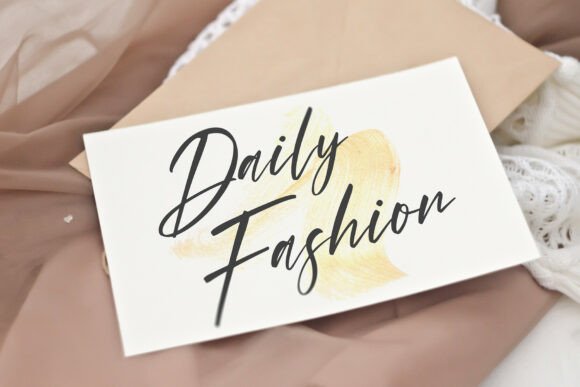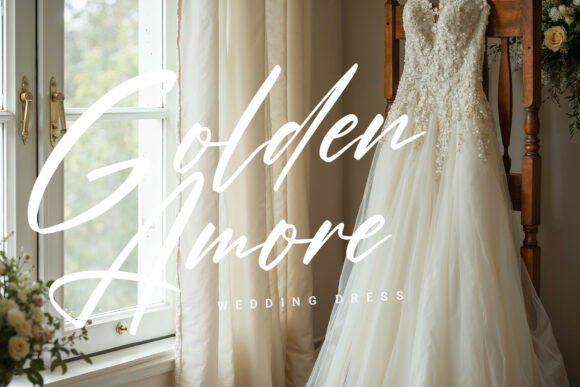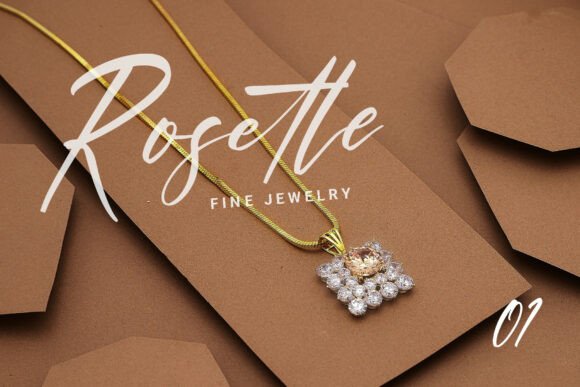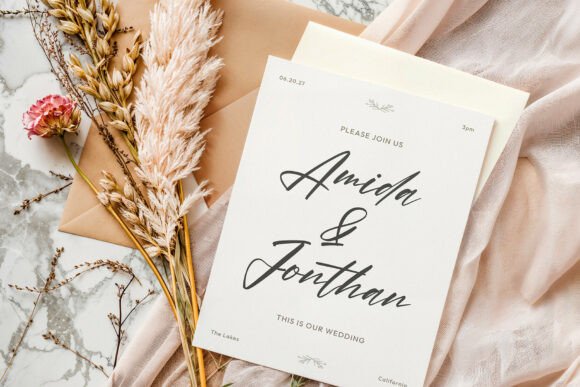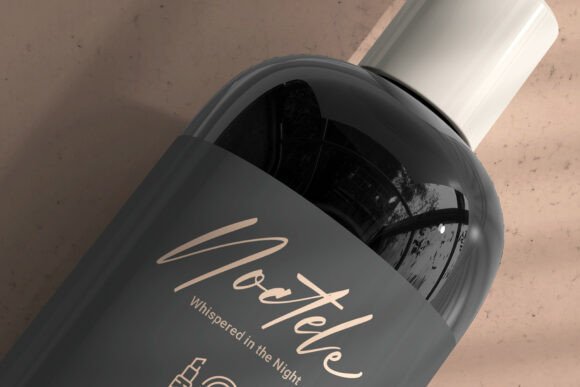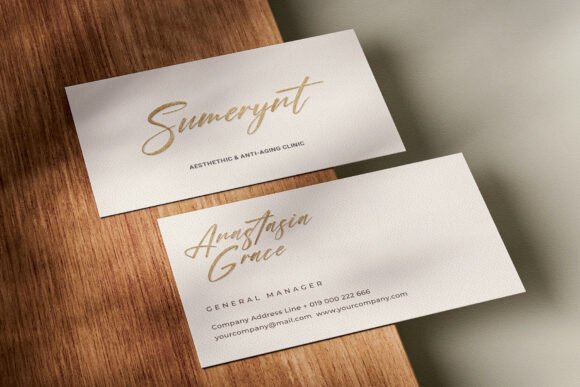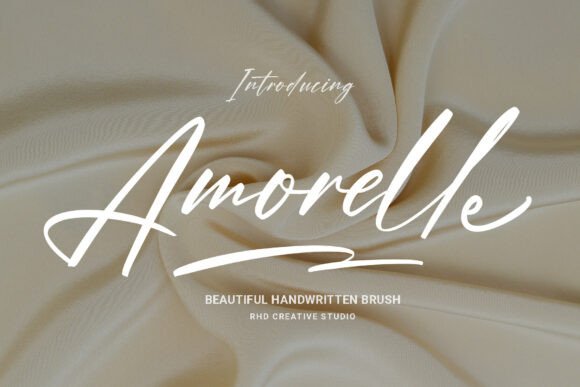
The Effortless Elegance of Amorelle Font: A Designer’s Dream
I still remember the design project that led me to discover Amorelle Font. I was working on a luxury fashion branding campaign, and my client requested a custom typography style that exuded elegance and sophistication. As I scoured the internet for the perfect font, I stumbled upon Amorelle, and it was love at first sight! ✨ The fluid, sweeping strokes and natural dry-brush texture instantly captured the essence of modern romanticism I was looking for.
An Honest Review of Amorelle Font
- ✨ Elegant ligatures and “effortlessly chic” silhouette
- ✅ Fluid, sweeping strokes that mimic the movement of a master calligrapher’s hand
- ✅ Natural dry-brush texture that adds a touch of authenticity to designs
- ✅ Perfect for luxury fashion branding, boutique cosmetic labels, signature-style wedding stationery, and high-end lifestyle editorial headers
While Amorelle Font is a stunning typeface, it’s not without its quirks. 🤔 For instance:
- ⚠️ Some users may find the font’s reliance on OpenType features and glyphs to be a bit tricky to navigate.
- ⚠️ The font’s dry-brush texture may not be suitable for very small font sizes or low-resolution designs.
The Designer Inspiration Behind Amorelle
Amorelle Font was designed with the intention of capturing the essence of modern romanticism. The designer’s inspiration came from the fluid, sweeping strokes of a master calligrapher’s hand, combined with the natural texture of a dry brush. The result is a typeface that exudes elegance, sophistication, and a touch of whimsy.
| Font Name | Amorelle Font |
| Author | RHD Creative Studio |
| What is Amorelle Font best suited for? | Amorelle Font is perfect for luxury fashion branding, boutique cosmetic labels, signature-style wedding stationery, and high-end lifestyle editorial headers. |
| Is Amorelle Font available in different weights or styles? | Amorelle Font comes in a range of styles and weights, making it versatile for various design applications. |